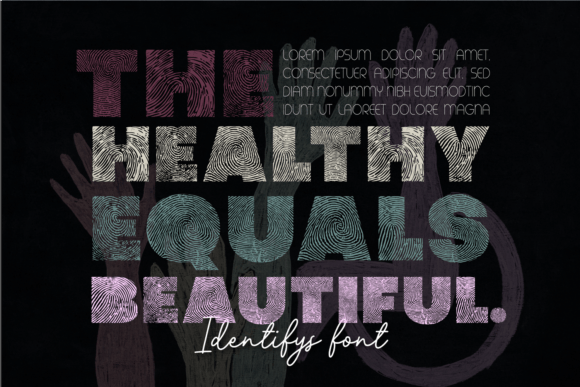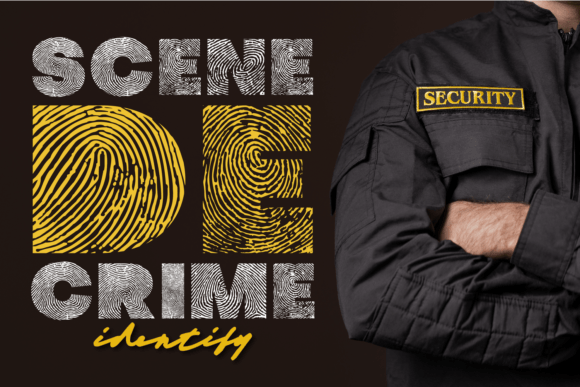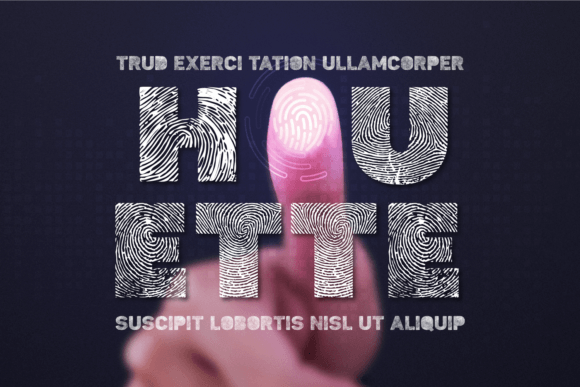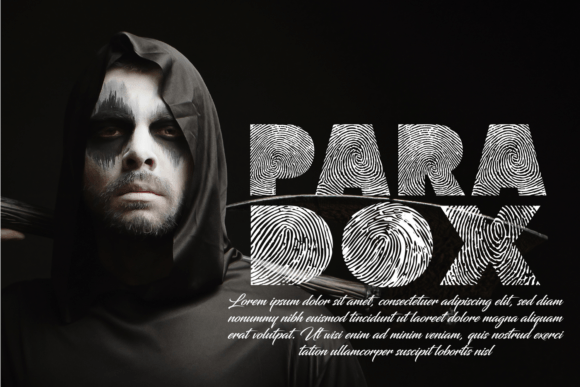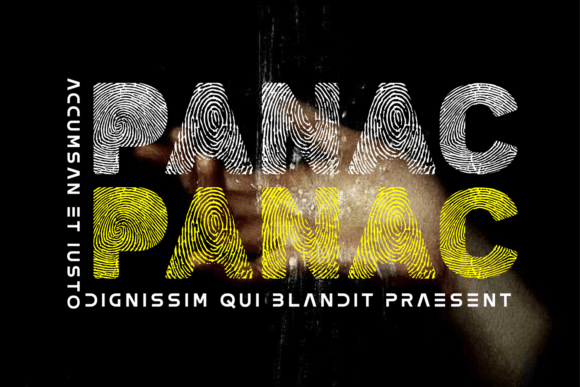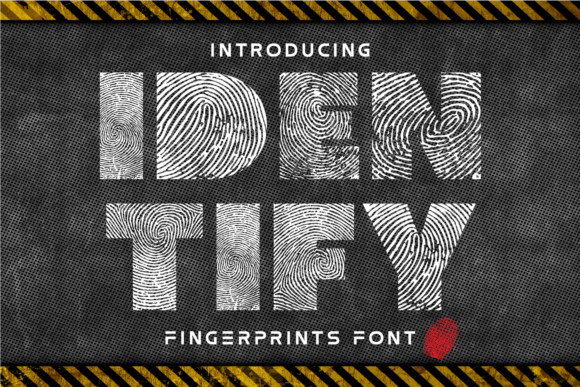
Introduction to Identify Font
Have you ever stumbled upon a design that immediately captures your attention and sparks creativity? For designers, those moments are priceless. For me, it was when I discovered the Identify Font – a stunning, high-quality display font that elevates any creative project to the next level. Its unique blend of simplicity and playfulness makes it perfect for a wide range of applications, from blog posts and logos to branding and decorations.
As a valuable resource for designers, Identify Font offers a free download option, allowing you to incorporate it into your projects seamlessly. With its transparent background, you can easily place it over images or use it as a standalone element. Whether you’re working on a children’s game or a cartoon-related design, this font is sure to add a lovely touch and make your project stand out.
Get ready to unleash your creativity with the Identify Font, a game-changing design resource that’s about to become your new go-to companion for all your creative endeavors.
Key Features of Identify Font
- Transparent background for seamless integration into designs
- Supports various languages and character sets for global applications
- Perfect for web design, graphic design, and digital art projects
Honest Review: Identify Font
As a designer, I’m always on the lookout for reliable design resources to elevate my creative projects. Recently, I stumbled upon Identify Font, a free download that promises to deliver high-quality fonts. I put it to the test and here’s my honest review.
- Extensive library: Identify Font boasts an impressive collection of fonts, making it an ideal resource for designers working on diverse projects.
- High-quality designs: The fonts are well-designed, with attention to detail and a focus on aesthetics.
- Transparent background: Many of the fonts come with transparent backgrounds, allowing for seamless integration into design projects.
- Limited customization options: While the fonts are well-designed, there’s limited flexibility to customize them to fit specific design requirements.
Overall, I’m impressed with Identify Font’s extensive library and high-quality designs. However, the limitations on customization and commercial use may be a drawback for some designers. If you’re working on a personal project, Identify Font is definitely worth checking out.
Identify Font
Common Use Cases for Identify Font
Identify Font is commonly used in a variety of design scenarios, including creating logos, brochures, and social media graphics. It’s also useful for identifying fonts used in images, allowing you to recreate the design or use the font in a new project.
Can I modify Identify Font to suit my design needs?